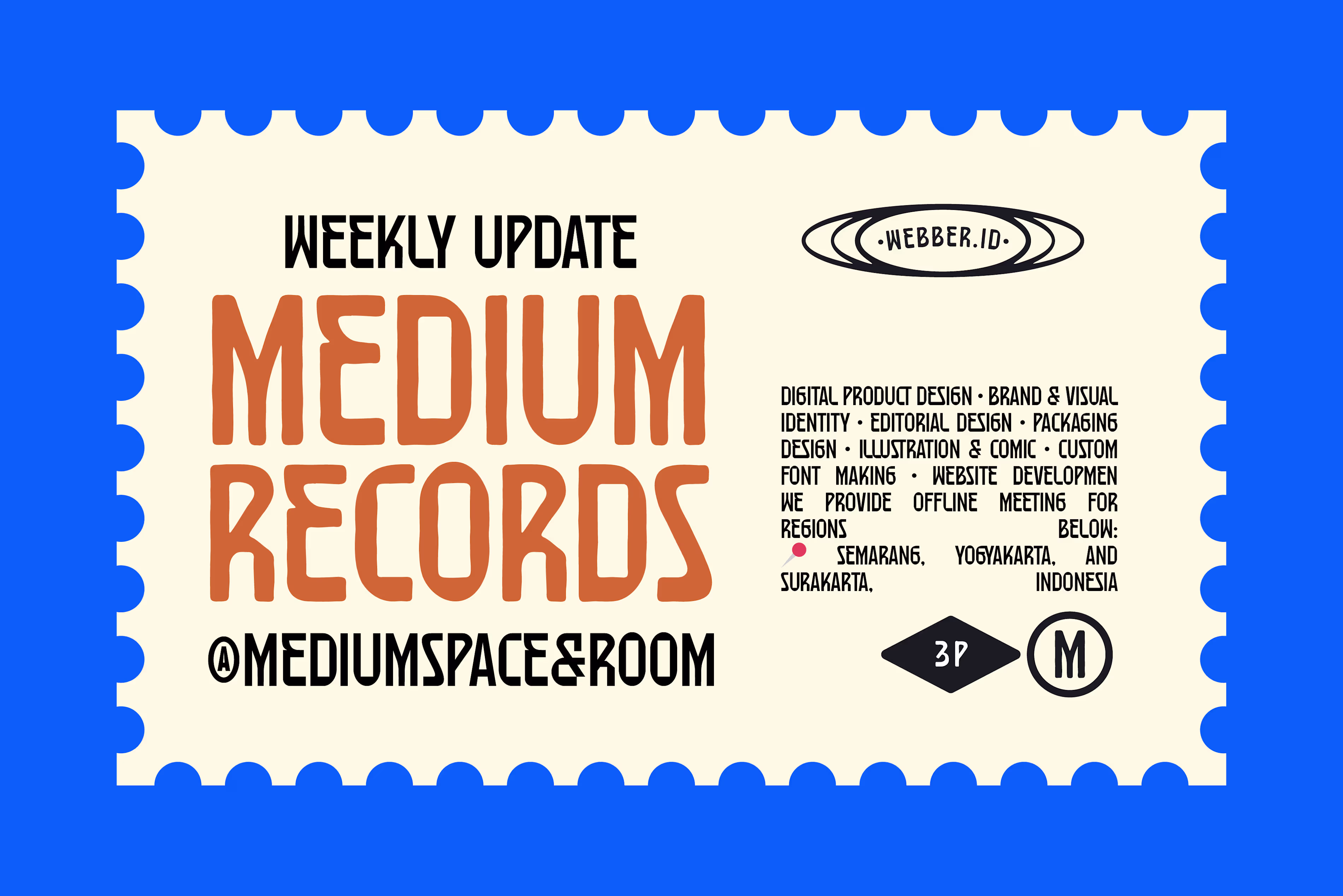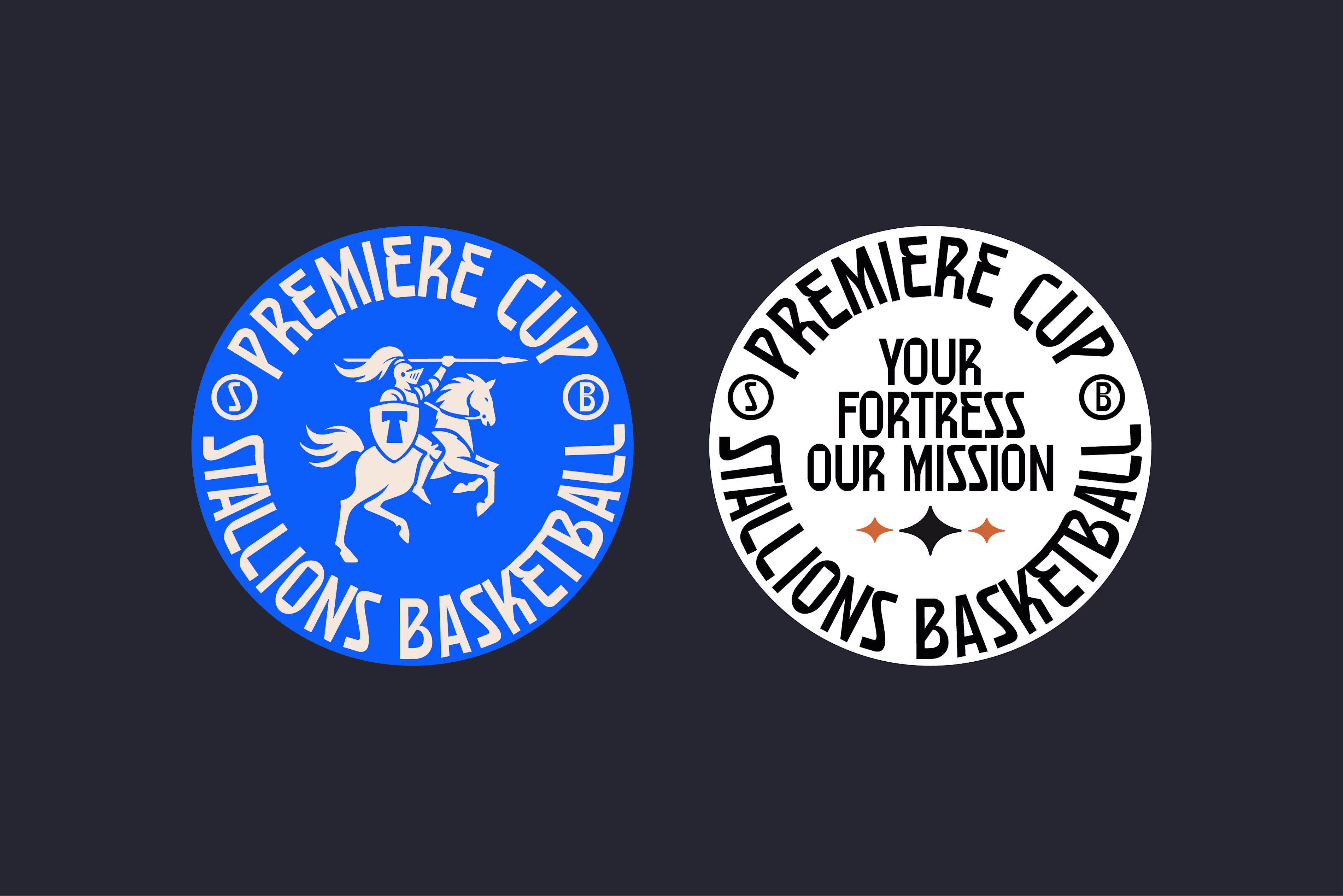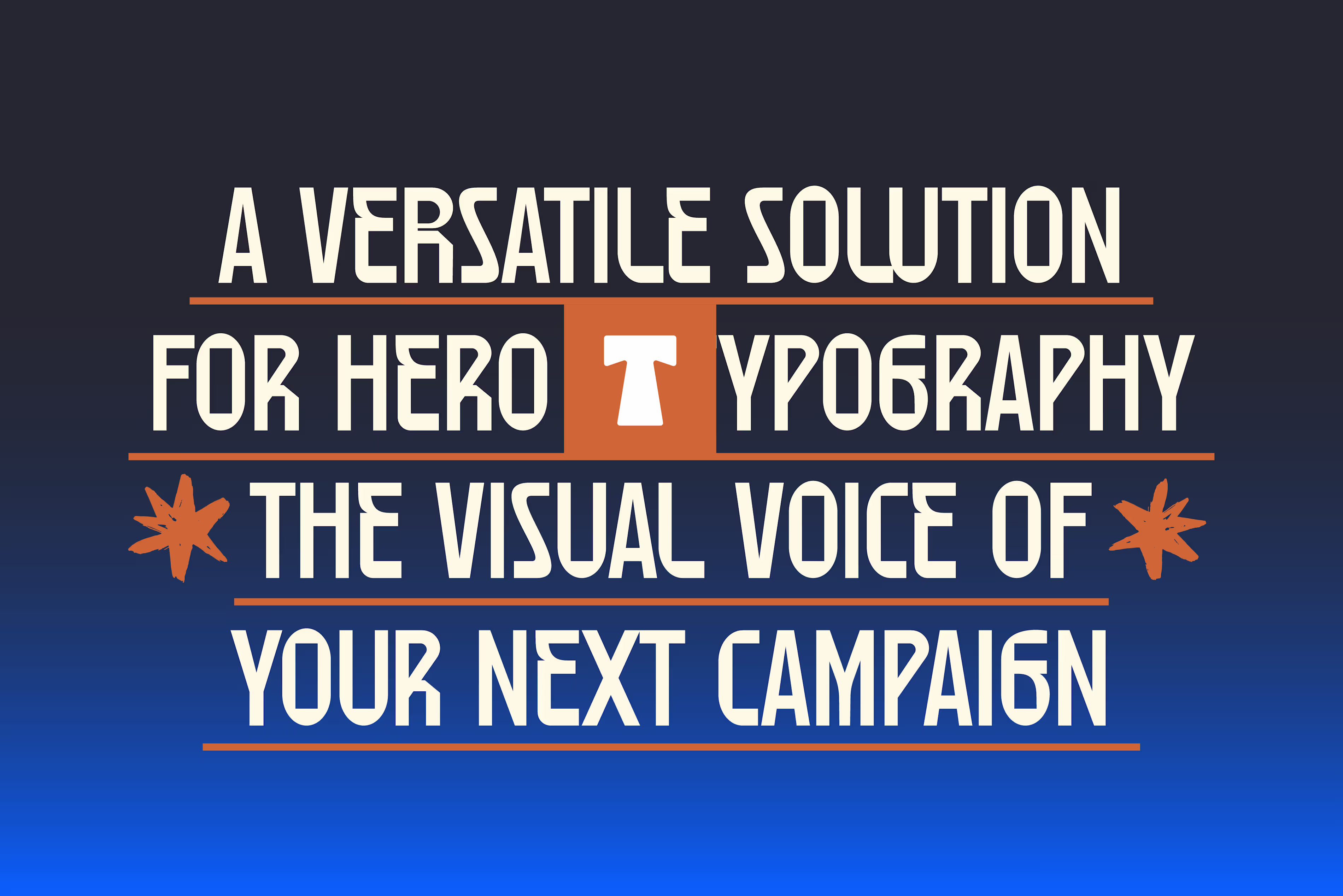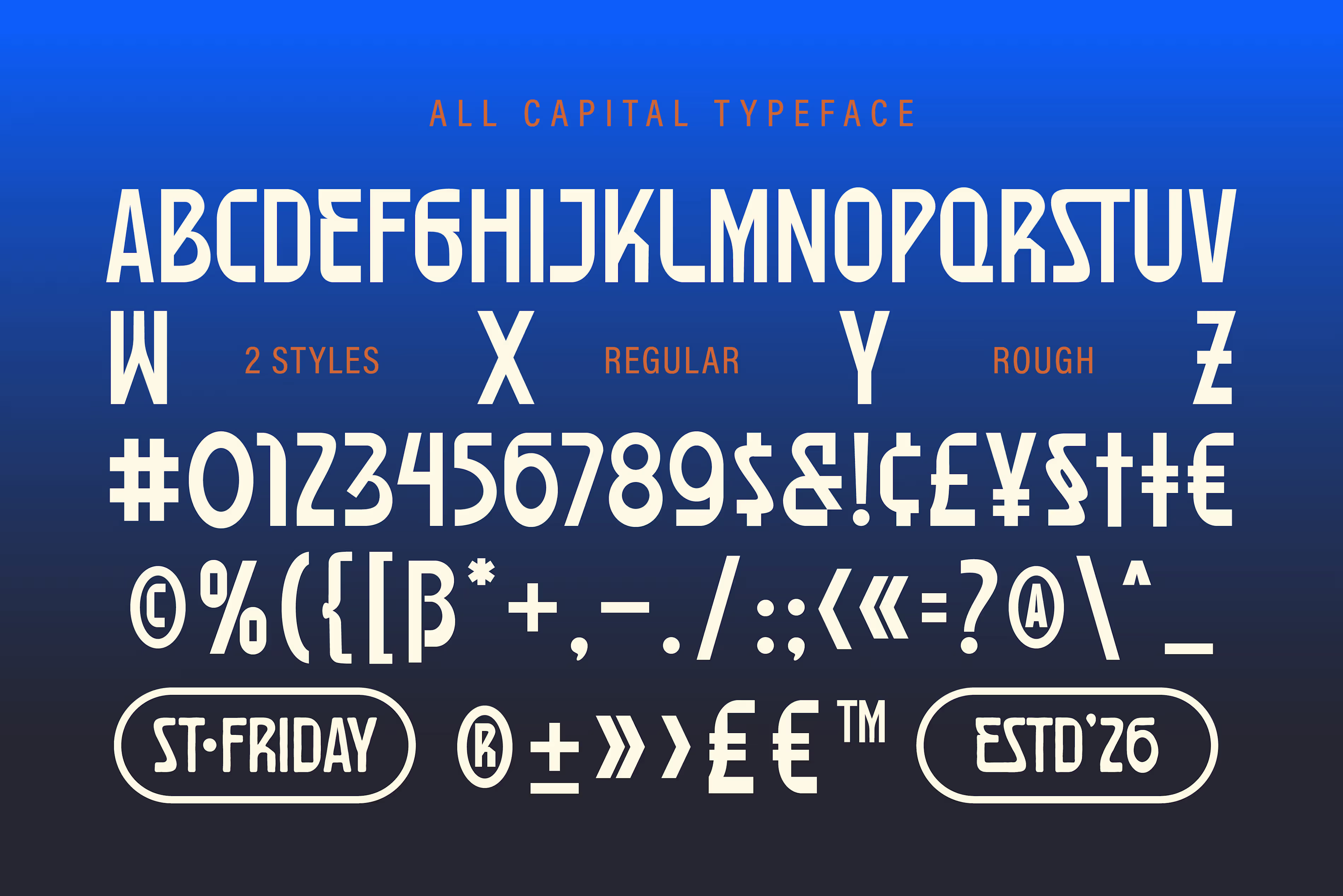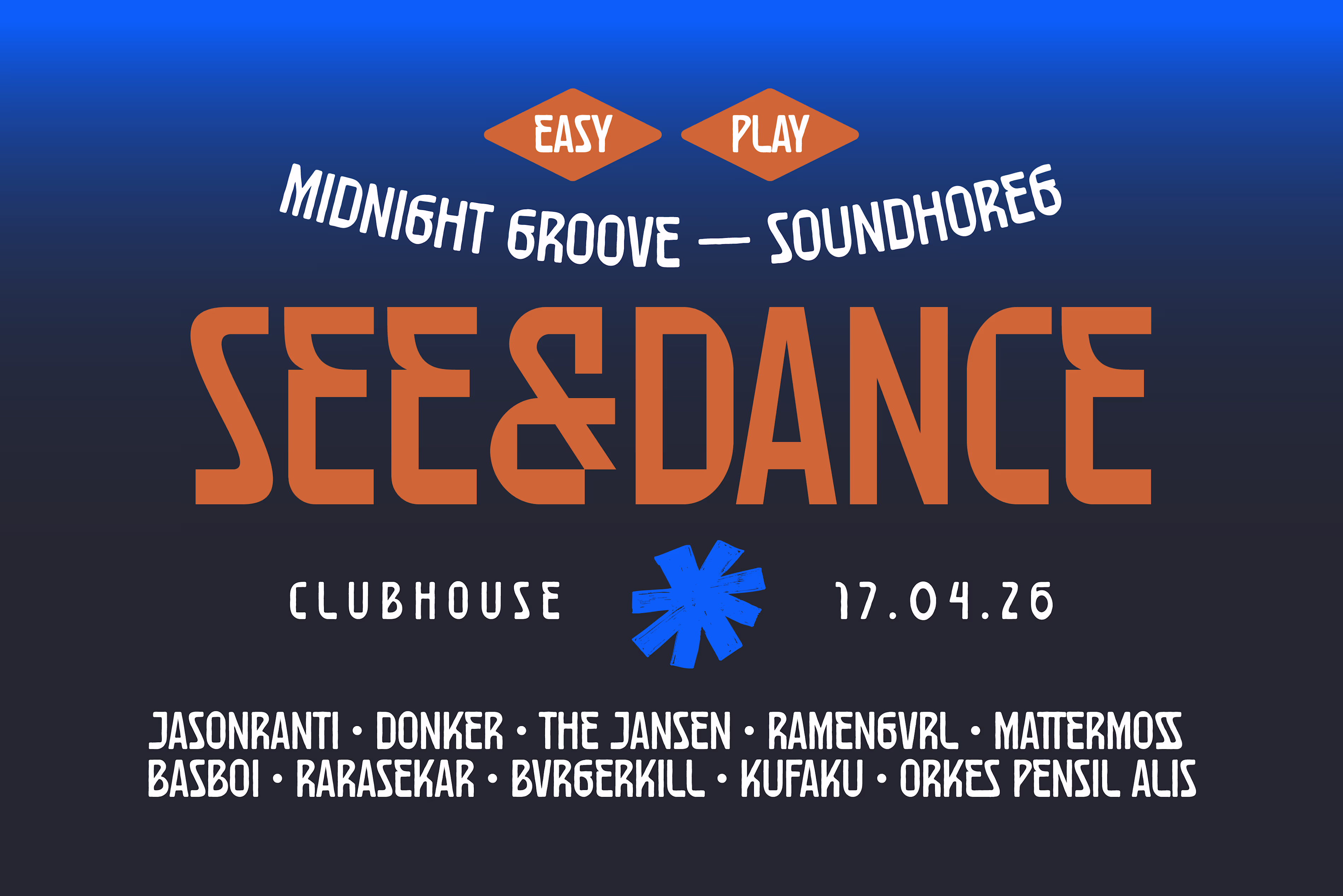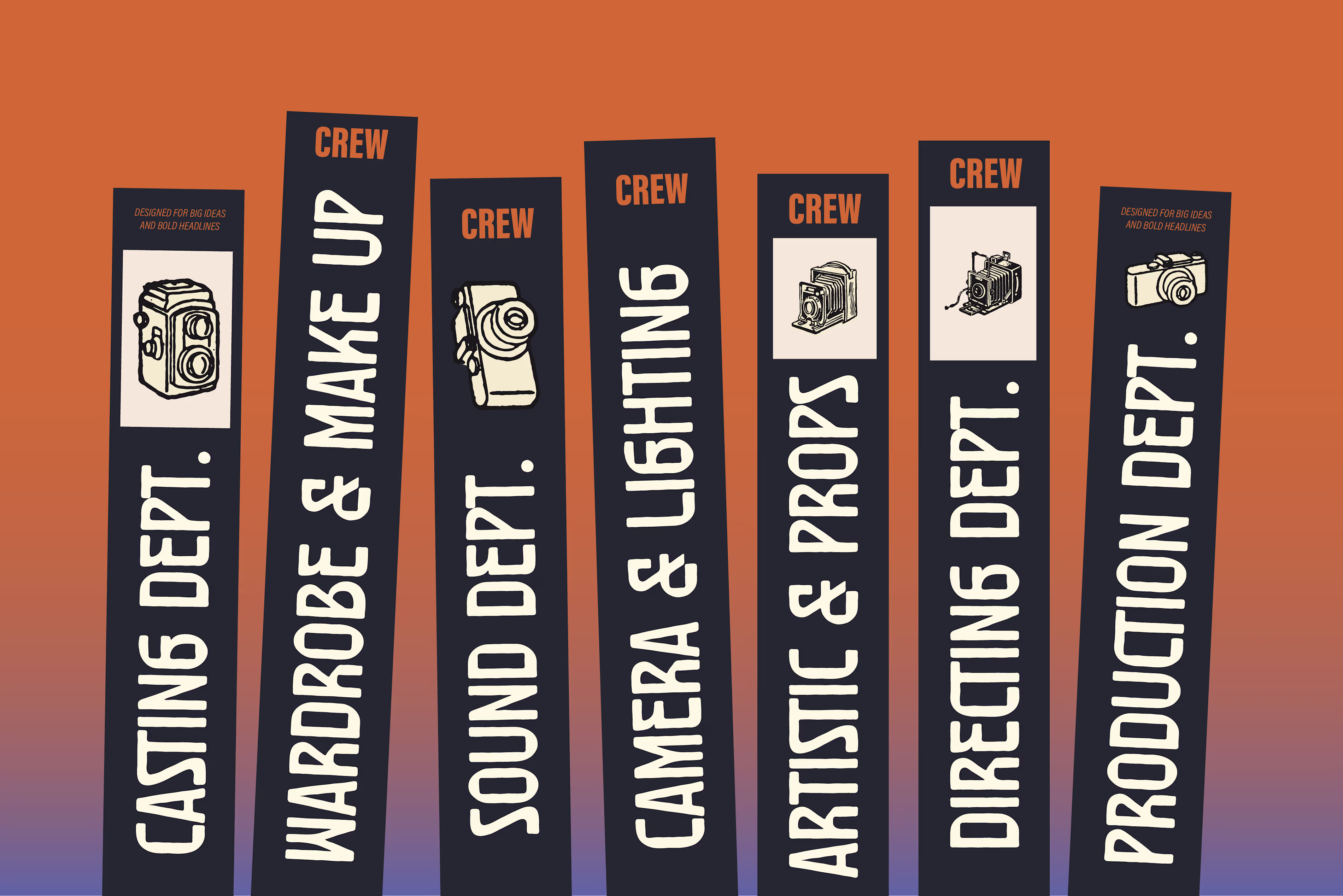
Bring the "Friday Feeling" to your design.
ST Friday is a charismatic display typeface designed to capture the relaxed, spirited, and creative energy of the weekend. With its chunky, hand-drawn curves and playful silhouette, this font is perfect for creators who want to add a touch of authentic, "casual-cool" character to their work.
Whether you're working on a bold brand identity, eye-catching packaging, or vibrant social media graphics, ST Fridaydelivers a professional look without losing its friendly, human touch.
ST Friday Regular: Clean, bold, and bouncy. Perfect for a modern, playful look.
ST Friday Rough: Features a gritty, hand-stamped texture for that authentic vintage or street-style vibe.
Branding & Logos: Create memorable, approachable identities.
Packaging: Stand out on the shelves with organic shapes.
Merchandise: Ideal for T-shirts, tote bags, and stickers.
Social Media: Make your quotes and headlines "pop."
Posters & Events: Perfect for music festivals, cafe menus, or art exhibitions.